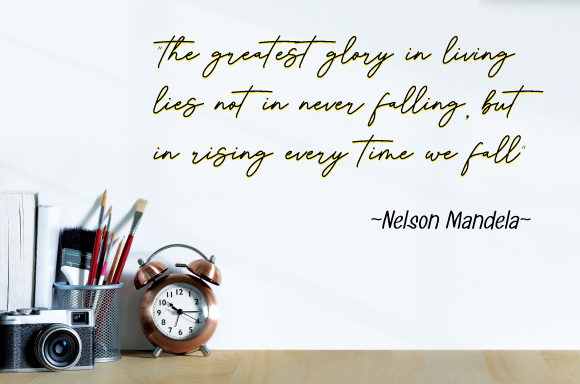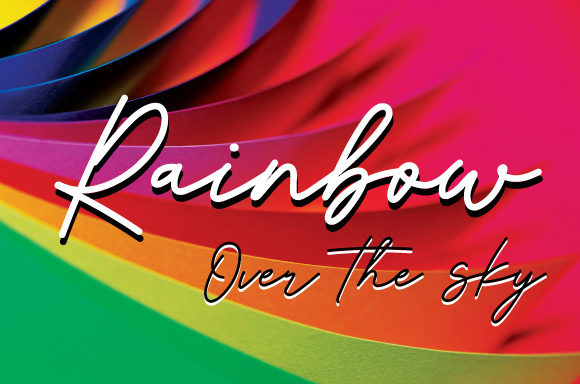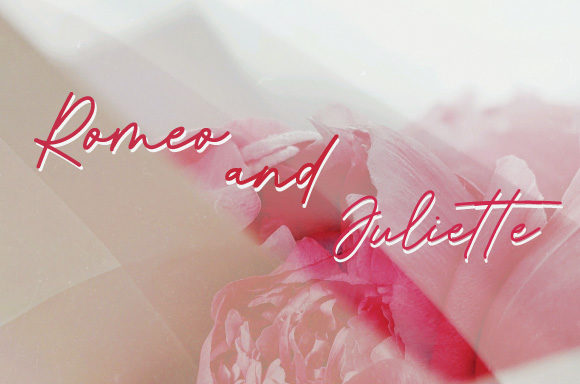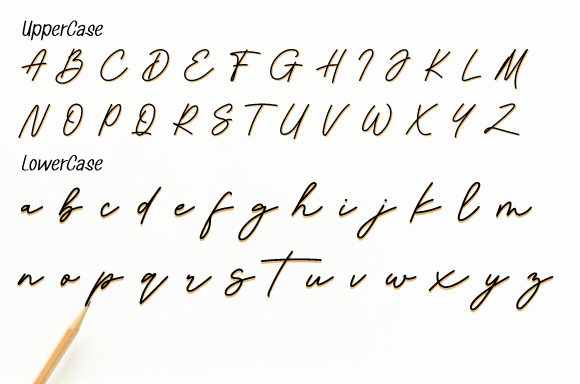
Gatra Font: Elevate Your Designs with Elegance and Sophistication
In the world of typography, a well-crafted font can make all the difference in elevating a design project from ordinary to extraordinary. For designers and crafters seeking a stylish and elegant solution, look no further than the Gatra Font. This stunning handwritten font is a lovely homage to classic calligraphy, making it perfect for a wide range of applications, from branding and signature designs to wedding invitations, promotions, product packaging, and more.
The Beauty of Gatra Font
Gatra Font is a masterpiece of modern calligraphy, boasting a unique and stylish handwritten aesthetic that exudes sophistication and elegance. Its flowing lines, delicate curves, and precise letterforms make it a true standout in the world of typography. Whether you’re looking to create a luxurious brand identity, a beautiful wedding invitation, or a eye-catching promotional material, Gatra Font is the perfect choice.
Key Features of Gatra Font
- Stylish Handwritten Aesthetic: Gatra Font features a beautiful, handwritten design that adds a touch of elegance and sophistication to any project.
- Classic Calligraphy Inspiration: This font is a lovely homage to traditional calligraphy, making it perfect for designers seeking a classic, timeless look.
- Versatile and Flexible: Gatra Font is suitable for a wide range of applications, from branding and signature designs to wedding invitations, promotions, product packaging, and more.
- Easy to Read and Understand: Despite its elegant design, Gatra Font remains highly legible, making it perfect for body text, headings, and more.
Uses of Gatra Font
Gatra Font is an incredibly versatile typeface, making it suitable for a wide range of design projects. Here are just a few examples of how you can use this beautiful font:
- Branding and Logo Design: Create a luxurious brand identity with Gatra Font, perfect for high-end businesses, fashion brands, and more.
- Wedding Invitations and Stationery: Add a touch of elegance to your wedding invitations, stationery, and other paper goods with this beautiful font.
- Promotions and Advertising: Make your promotional materials stand out with Gatra Font, perfect for print ads, flyers, brochures, and more.
- Product Packaging: Elevate your product packaging with Gatra Font, adding a touch of sophistication and elegance to your product design.
Why Choose Gatra Font?
With so many fonts available, why choose Gatra Font for your design projects? Here are just a few reasons why this font stands out:
- Unique and Stylish Design: Gatra Font boasts a truly unique and stylish design that will set your projects apart from the competition.
- Highly Legible: Despite its elegant design, Gatra Font remains highly legible, making it perfect for body text, headings, and more.
- Versatile and Flexible: This font is suitable for a wide range of applications, making it a valuable addition to any designer’s toolkit.
| Font Name | Gatra Font |
| Author | Dedi Art Studio |
In conclusion, Gatra Font is a stunning handwritten font that is sure to elevate your design projects to the highest level. With its stylish and elegant design, versatile flexibility, and high legibility, this font is perfect for designers and crafters seeking a sophisticated solution for their branding, wedding invitations, promotions, product packaging, and more. So why wait? Discover the beauty of Gatra Font today and take your designs to new heights!